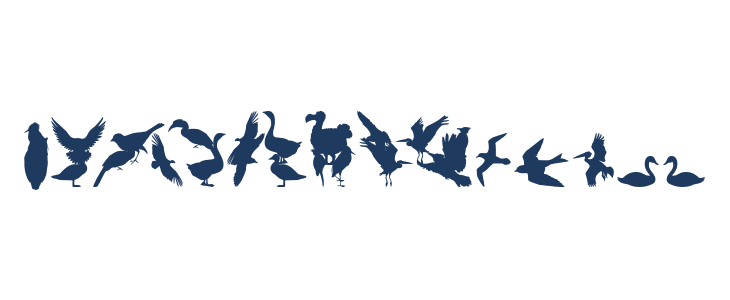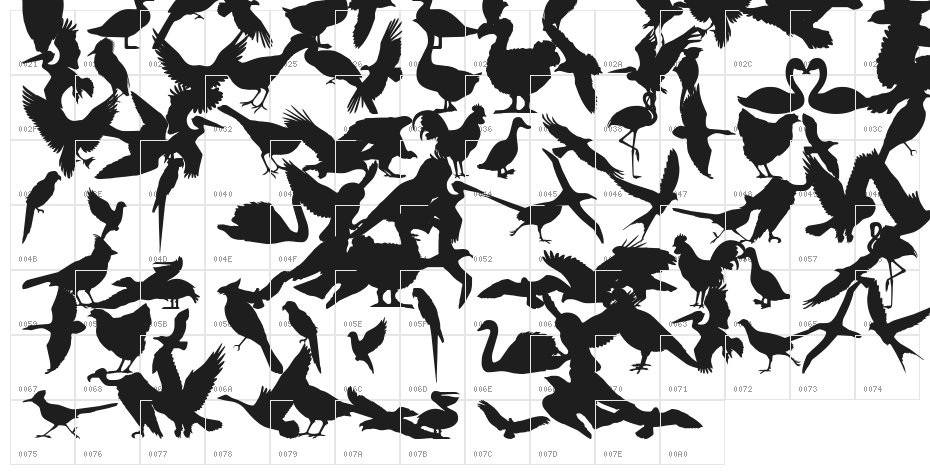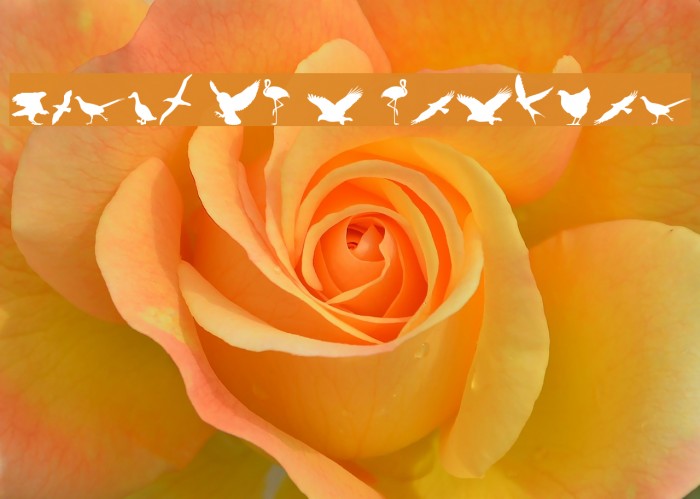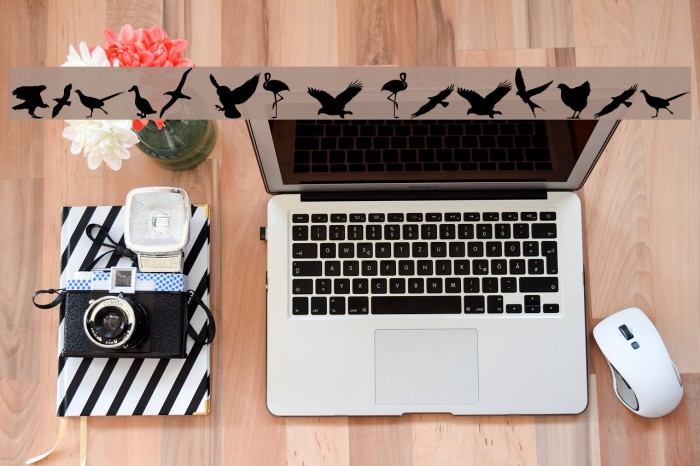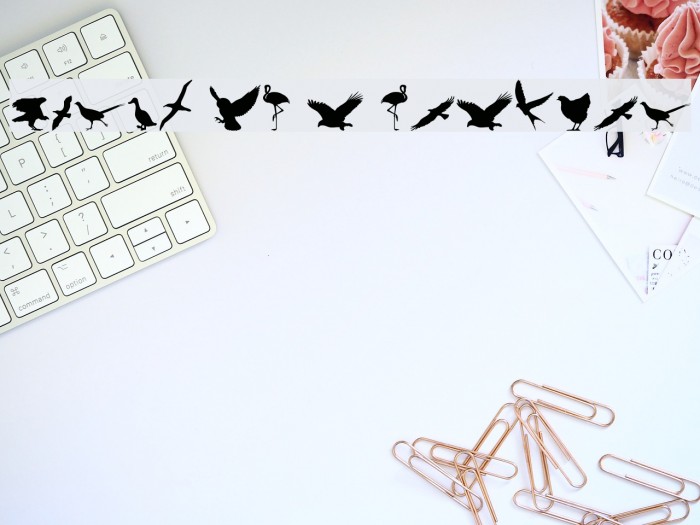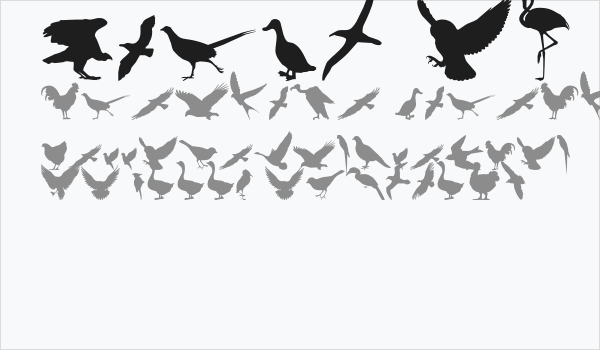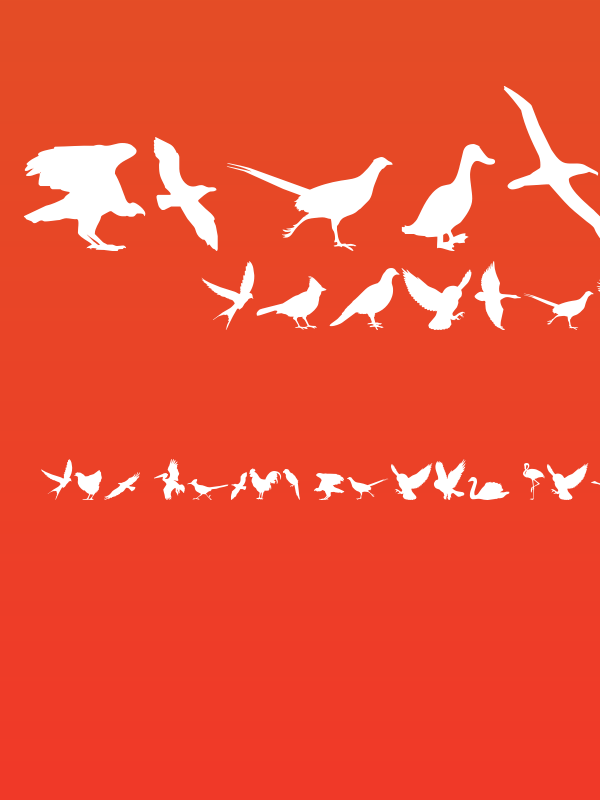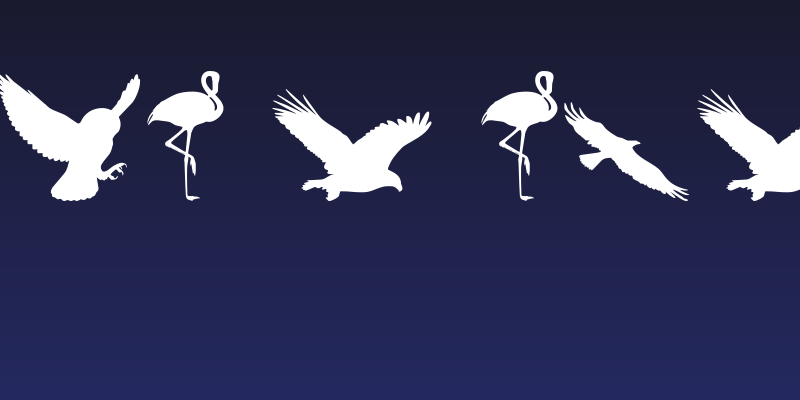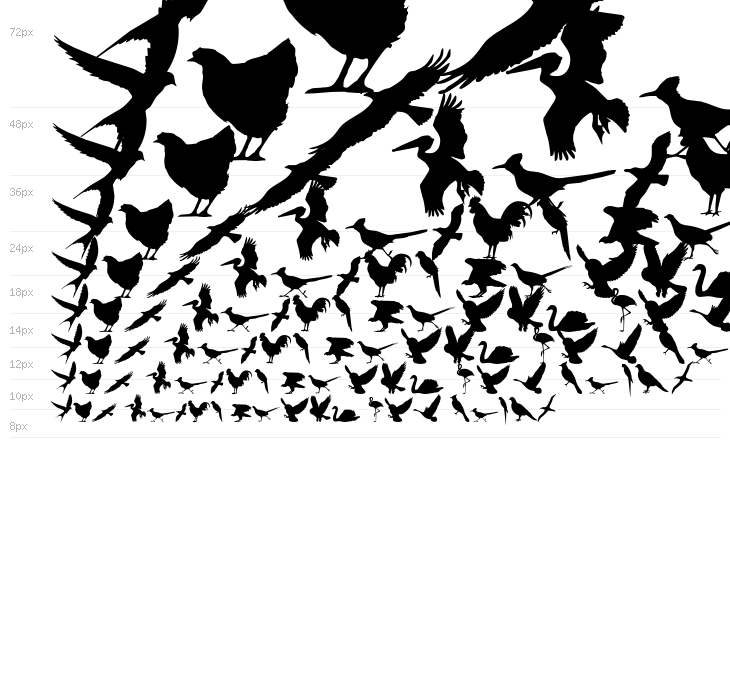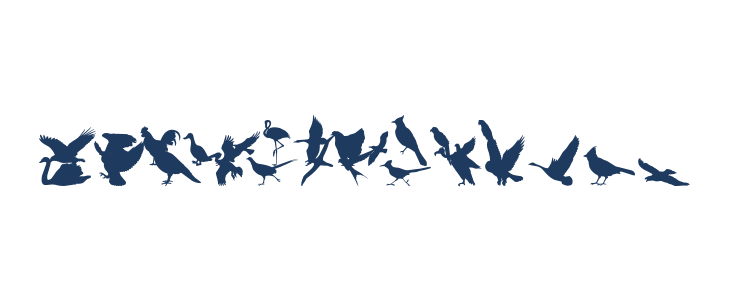
Birds of a Feather Font
Birds of a Feather Description
A decorative font composed of various bird silhouettes representing each character, with each glyph taking the form of a different bird species in a solid black style. The shapes are highly illustrative and lack traditional typographic features, focusing on recognizable bird outlines rather than letterforms.
| Overall Style | Decorative, Playful, Thematic |
| Use Case | Logos, Headlines, Posters, Themed graphics |
| Proposed Projects | Nature-themed posters, children's books, environmental campaigns, creative branding, event invitations. |